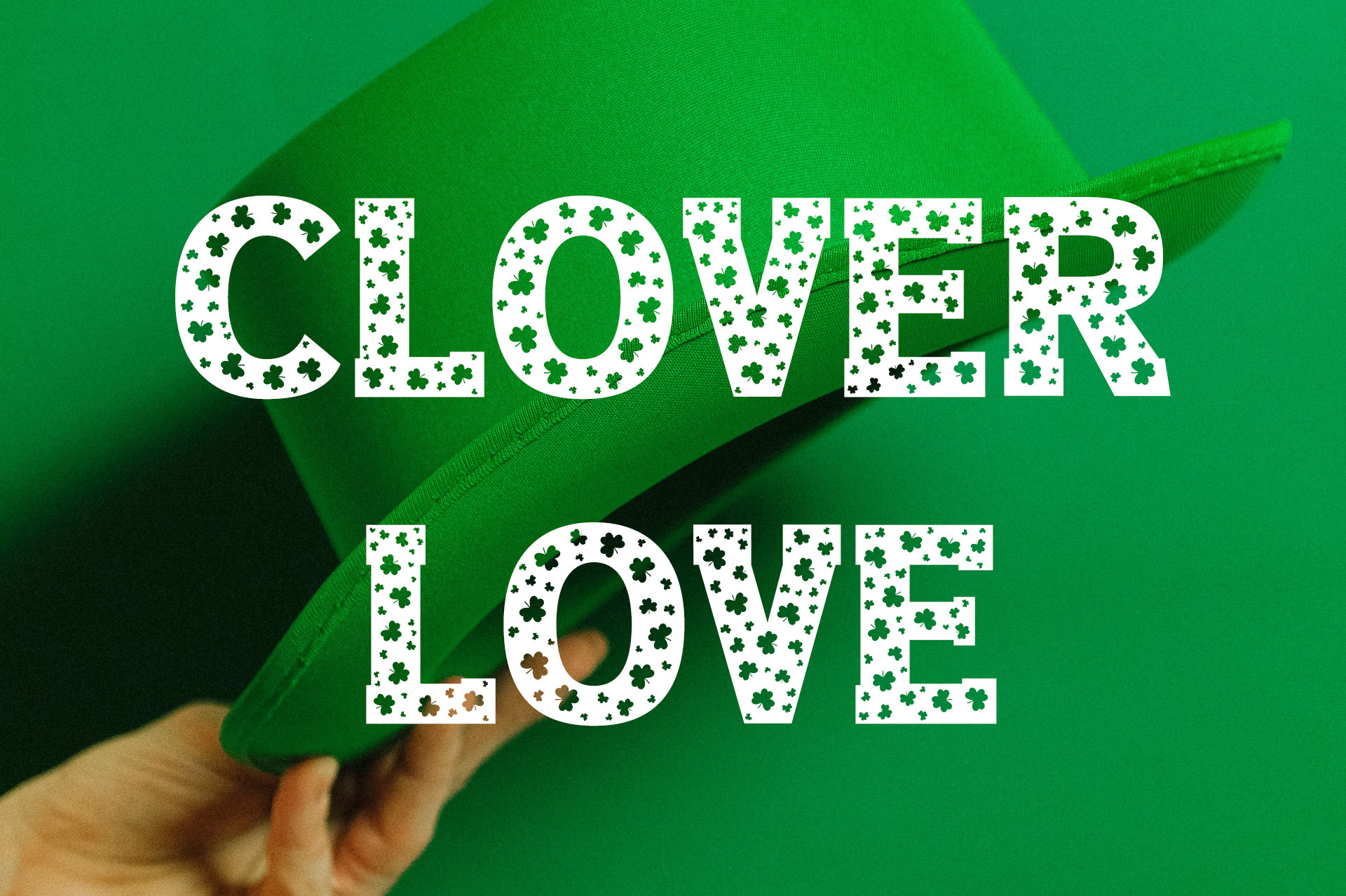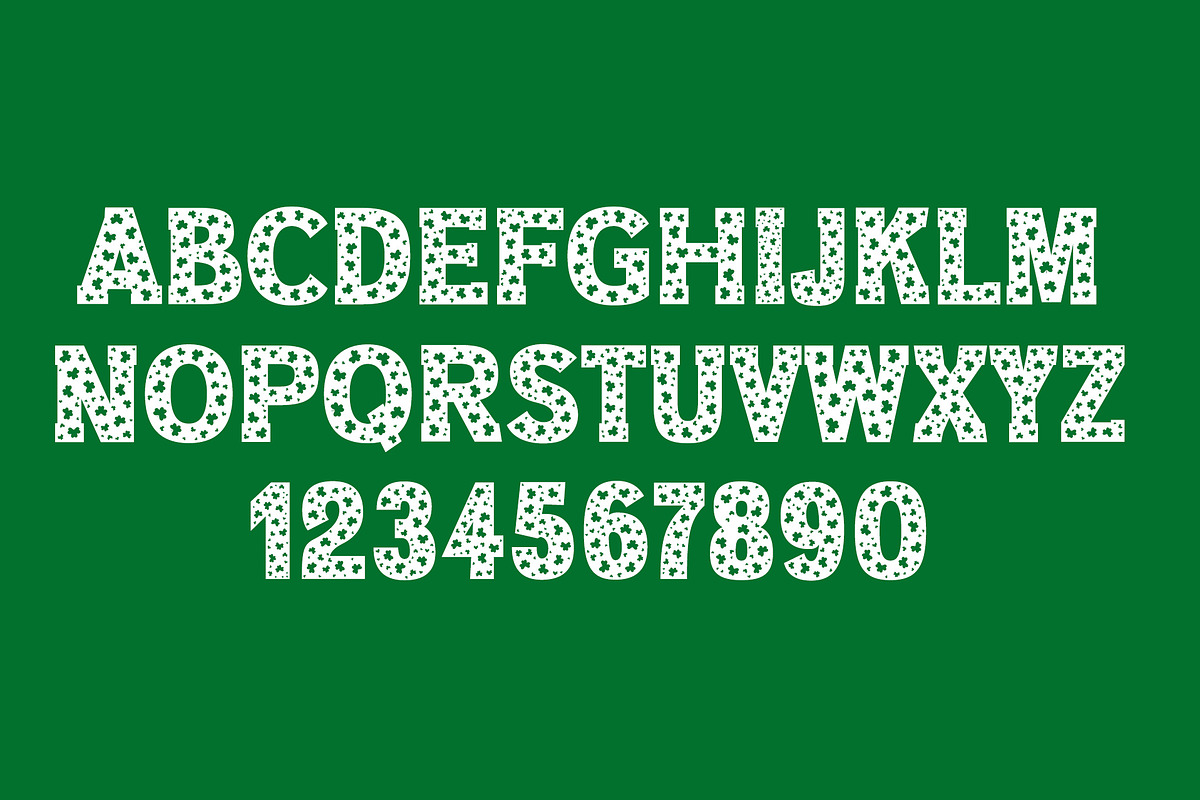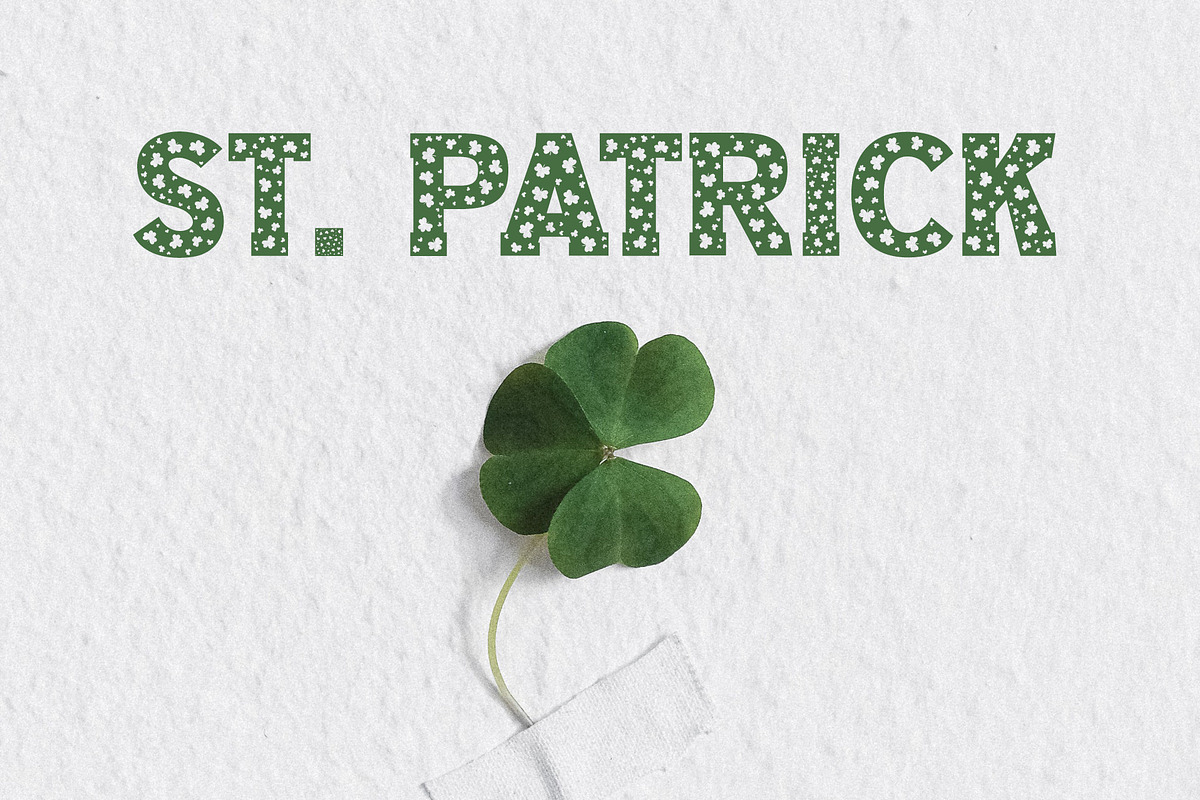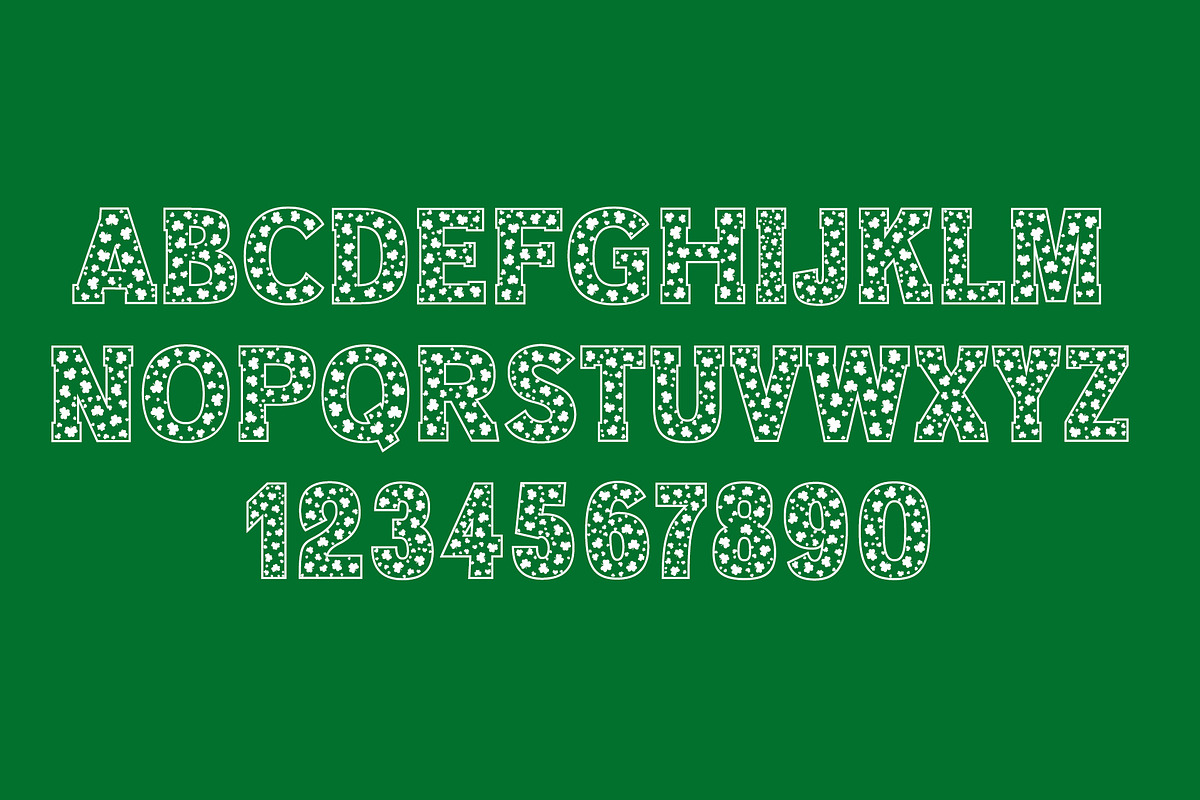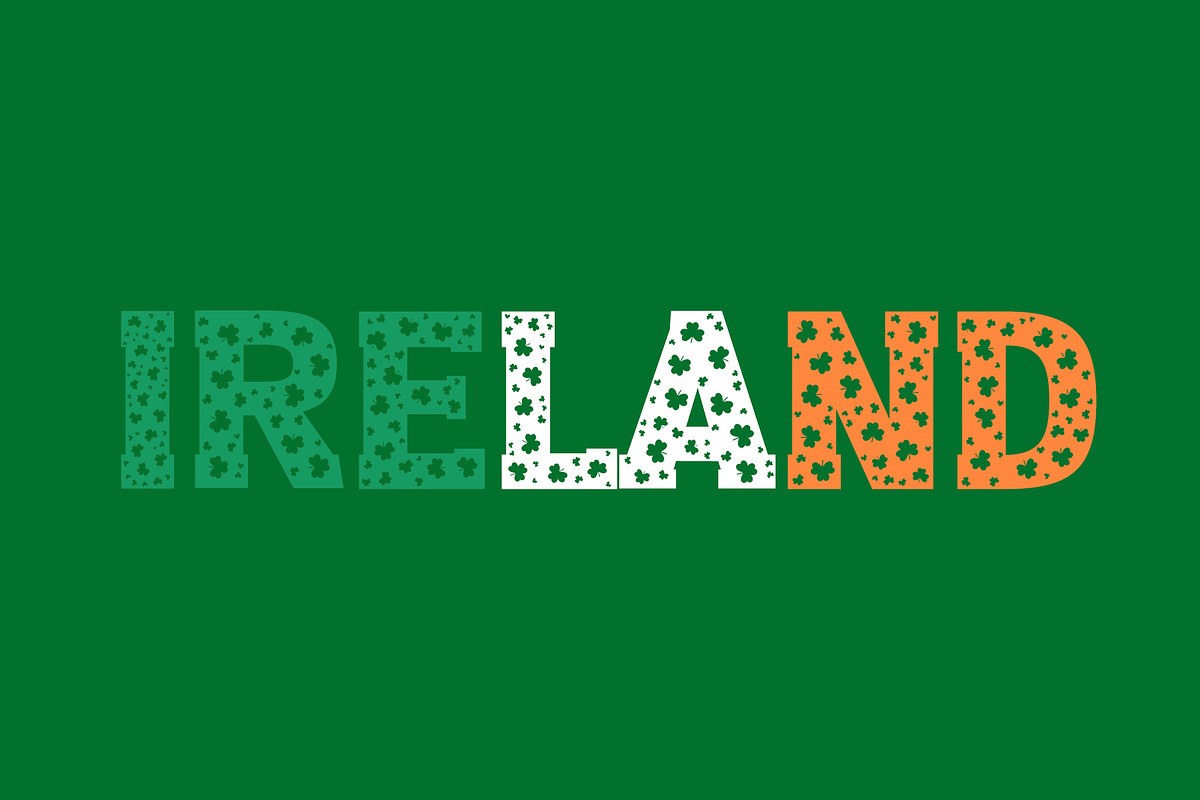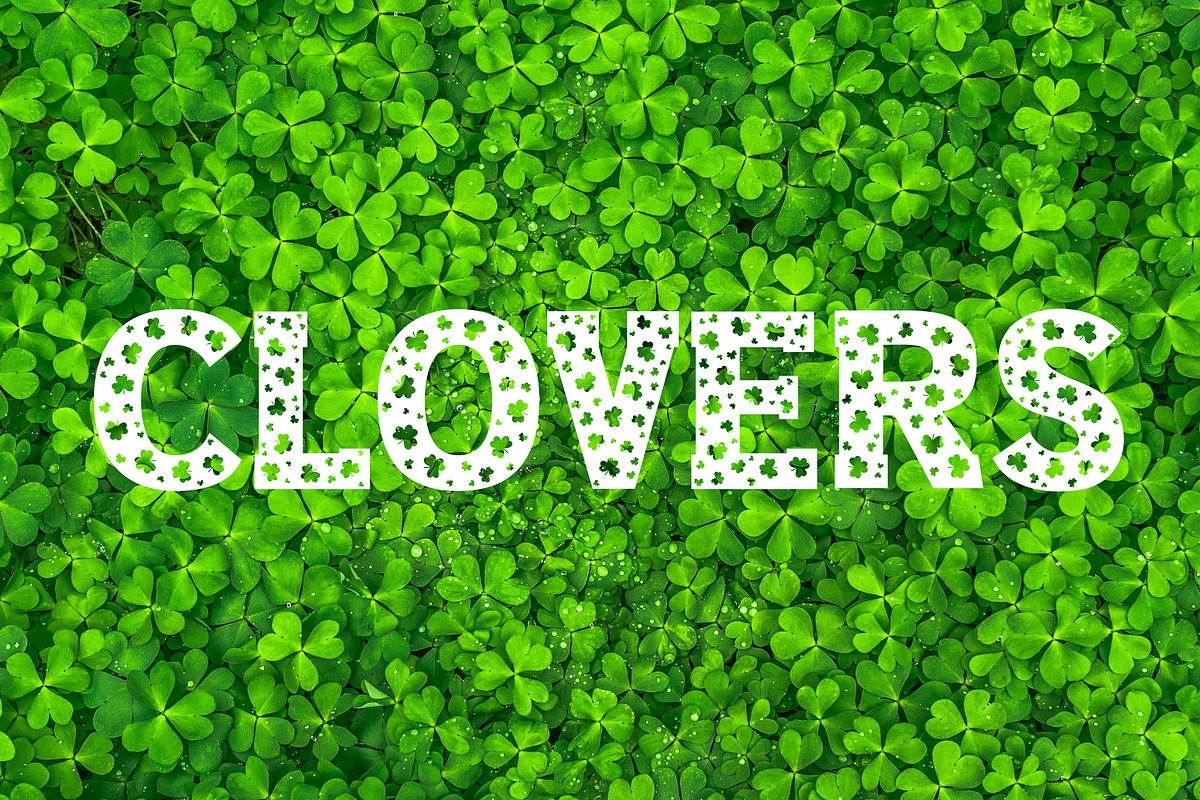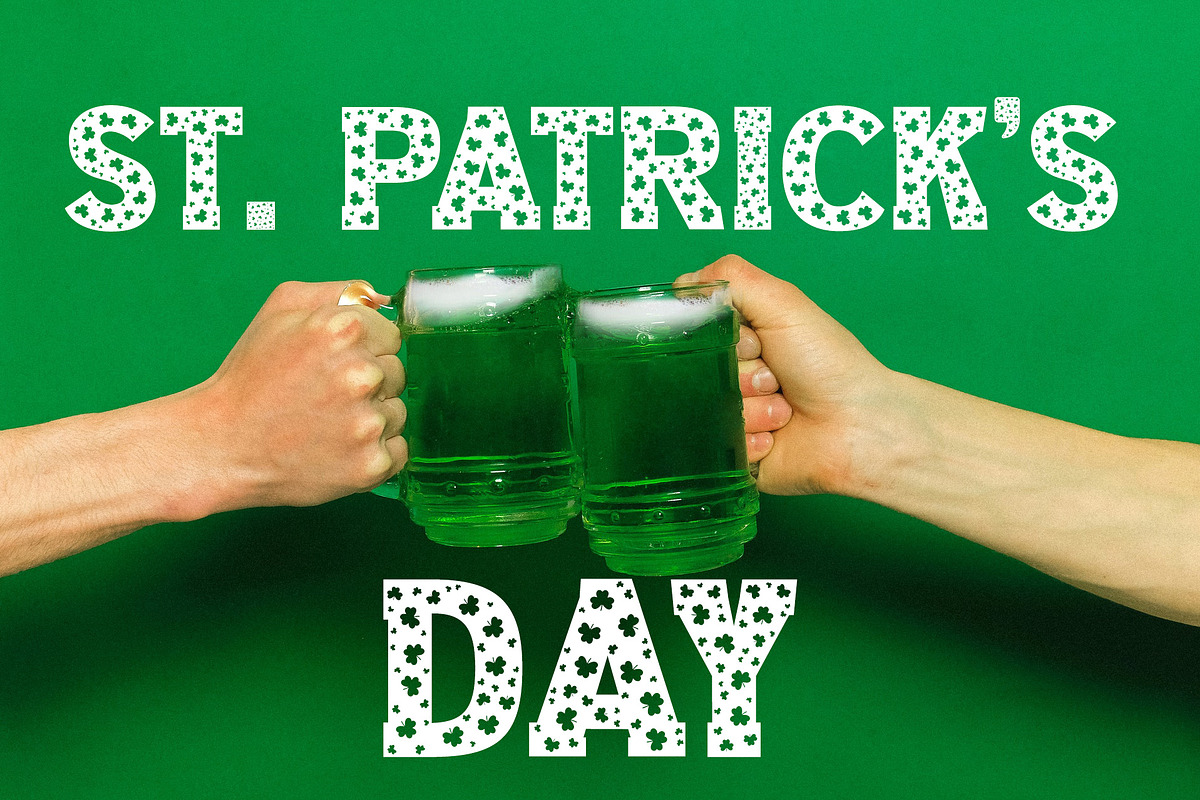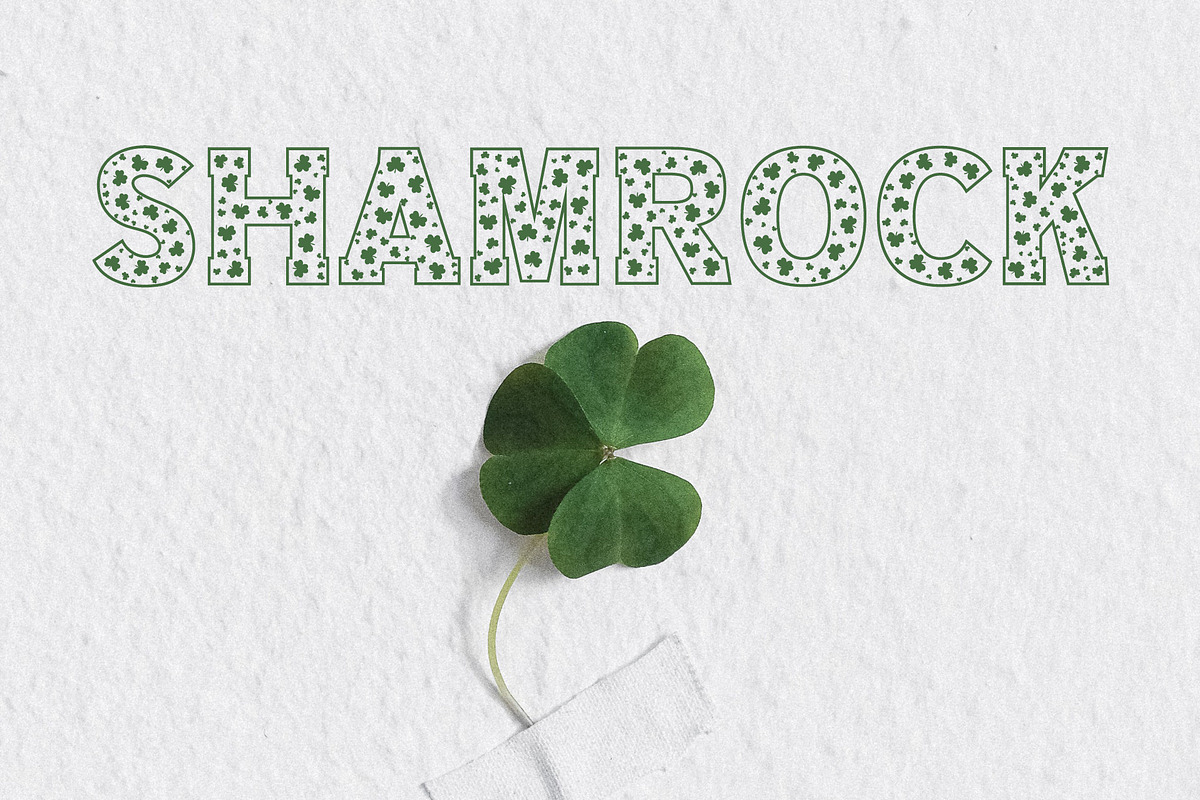
Clover Love St Patrick's Day Font
Clover Love is bold decorative St Patrick's Day Font.
It comes with two font variations Clover Love Regular and Clover Love Outline.
Clover Love is a bold and incredibly authentic decorative font, featuring little clovers as ornaments. Add this thick lettered font to your most creative ideas and notice how it makes them come alive!